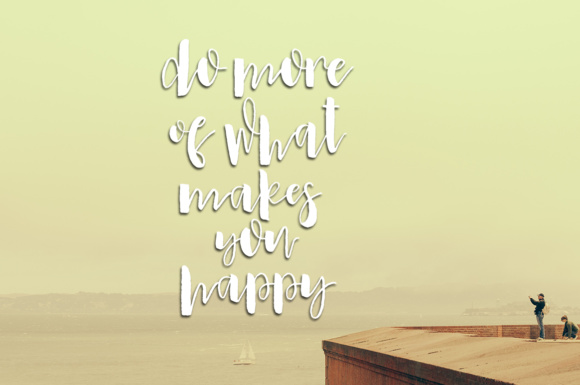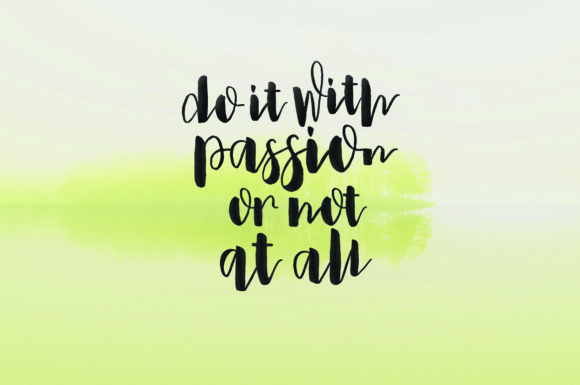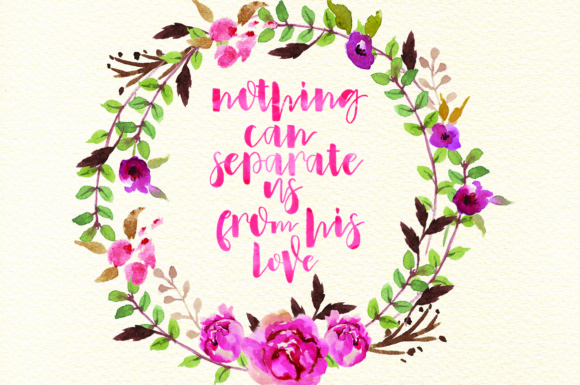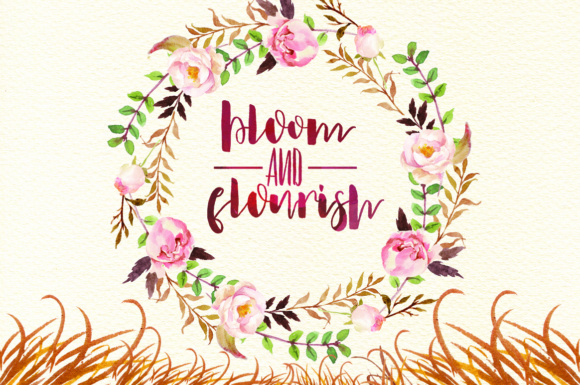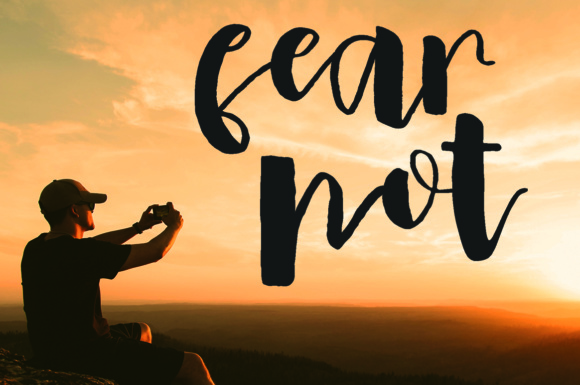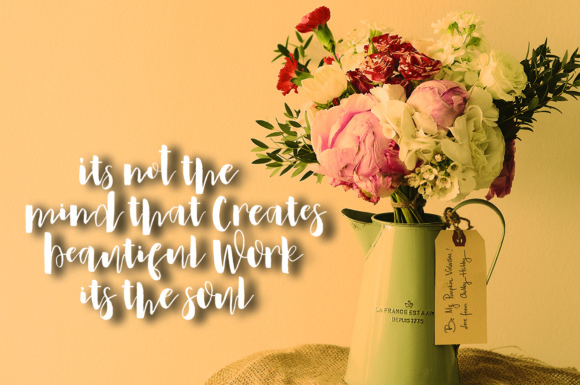
Wenstroong Font
About Wenstroong Font
Wenstroong is a beautiful, upright calligraphy font that will make all your invitational projects and hand-lettered designs easier than ever! This font has a ton of irregularities that give it an appealing look for these types of projects, and it reads well so you can use it in both headlines and body text.